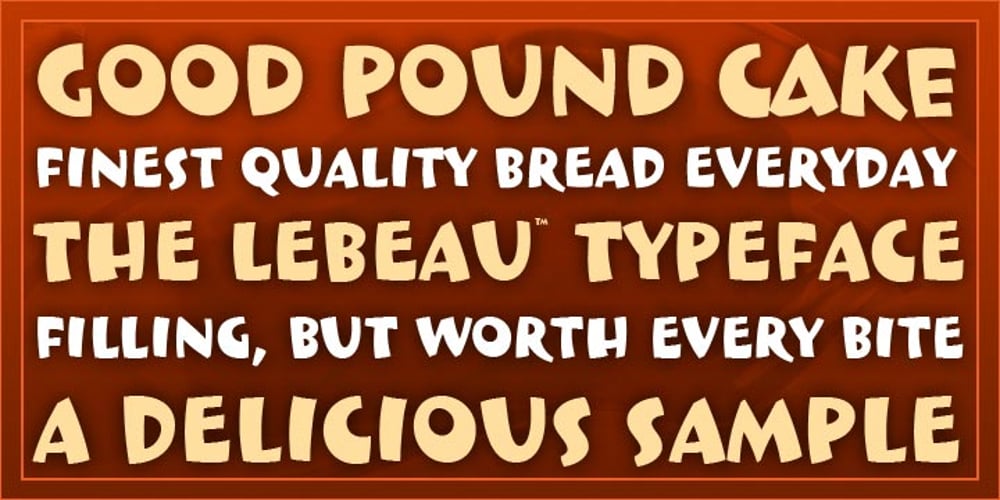
LeBeau Font Family was designed by Steve Matteson and published by Ascender. LeBeau contains 1 styles and family package options. LeBeau is a new display typeface designed by Steve Matteson. LeBeau is an all capital letters font, and is based on brush-lettering from the turn of the 20th Century. The Lebeau font has an amusing, art nouveau attitude and can be used for festive posters and fliers, greeting cards or invitations.